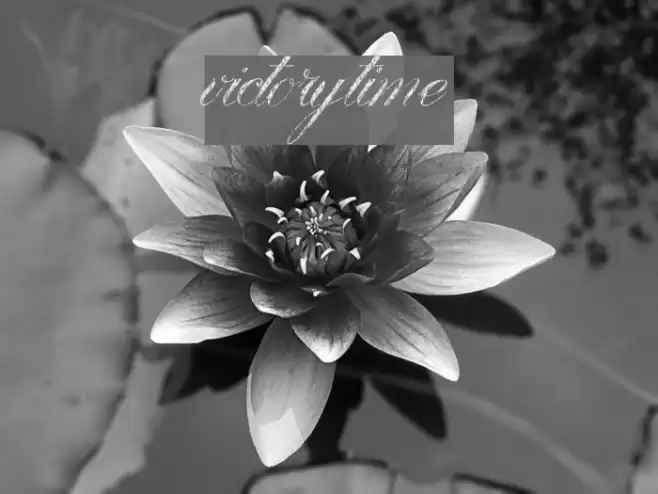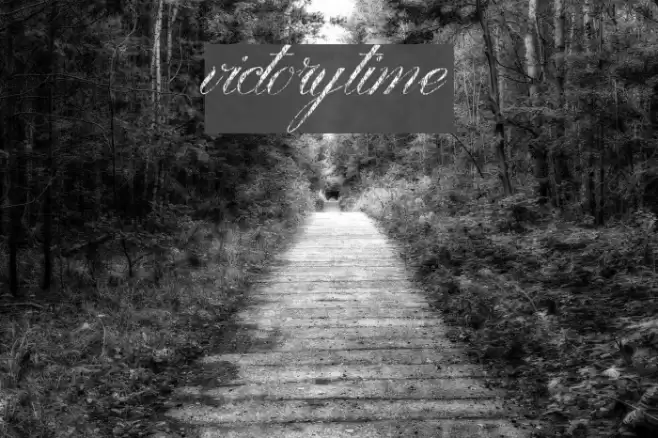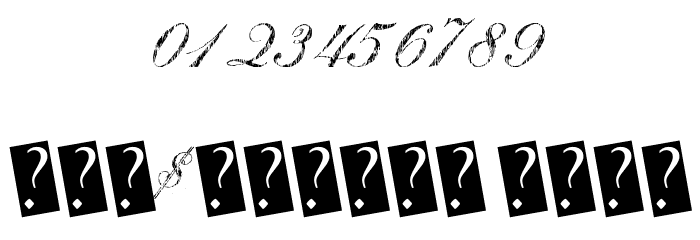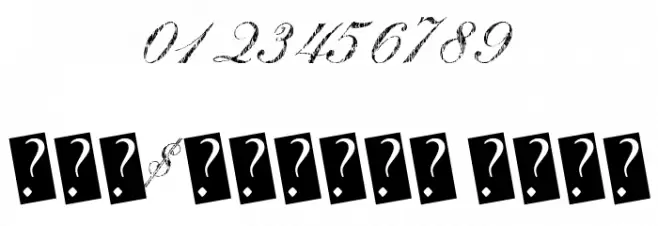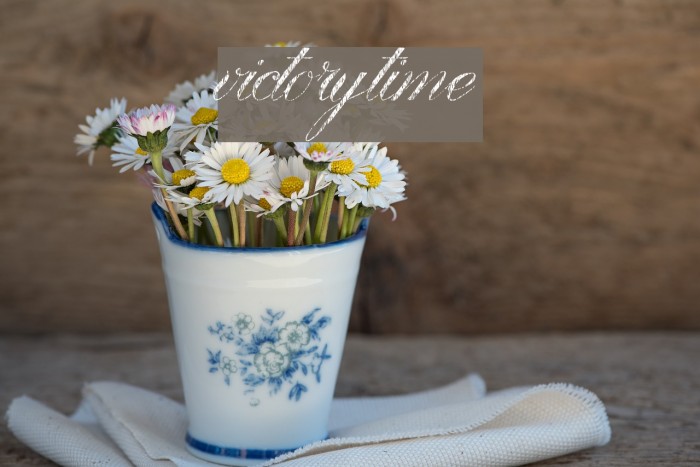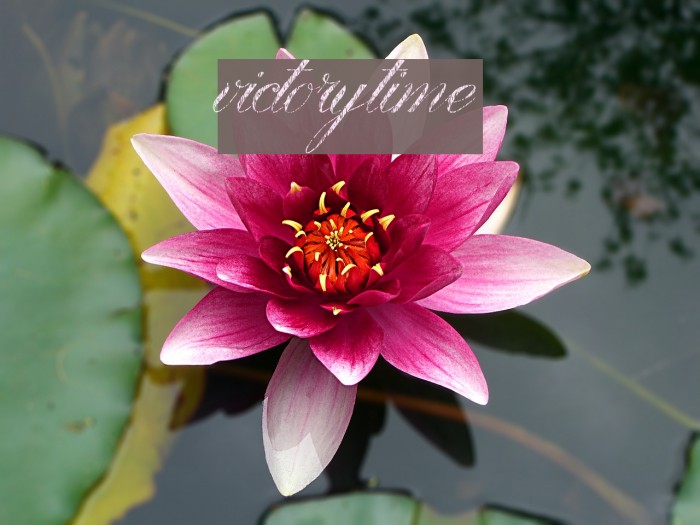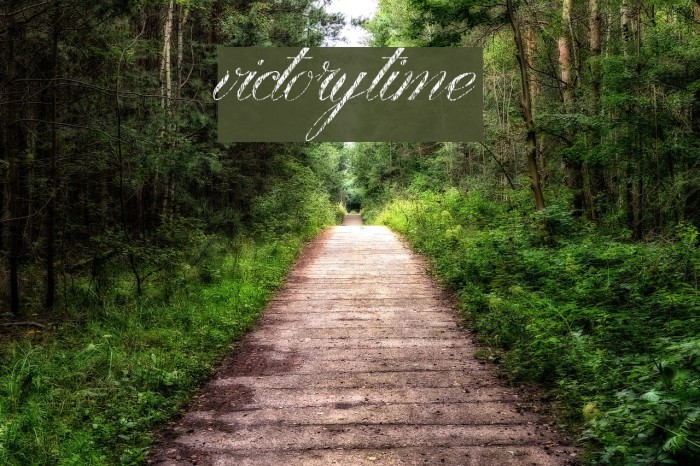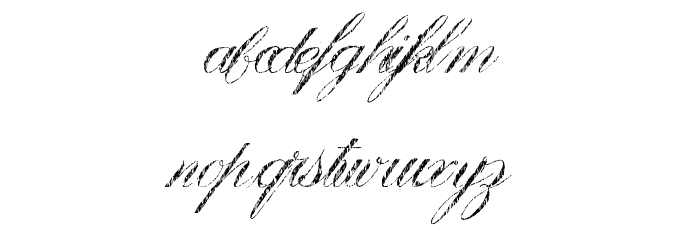
VictoryTime Font
VictoryTime Description
This font exudes a classic and elegant script style, characterized by its flowing, cursive letterforms. The strokes are smooth and connected, giving it a handwritten appearance that is both sophisticated and approachable. The uppercase and lowercase letters maintain a consistent style, with graceful curves and loops that enhance its decorative nature. The numerals are equally stylized, fitting seamlessly with the overall aesthetic. The special characters are crafted with the same attention to detail, ensuring uniformity across all glyphs. This font is ideal for projects that require a touch of elegance and personal flair.
A classic, elegant script font with flowing, cursive letterforms from Uncategorized fonts.
- Proposed Projects: Wedding invitations, greeting cards, elegant branding, personal stationery.
- Overall Style: Classic
- Use Case: Logos, Invitations, Decorative text.